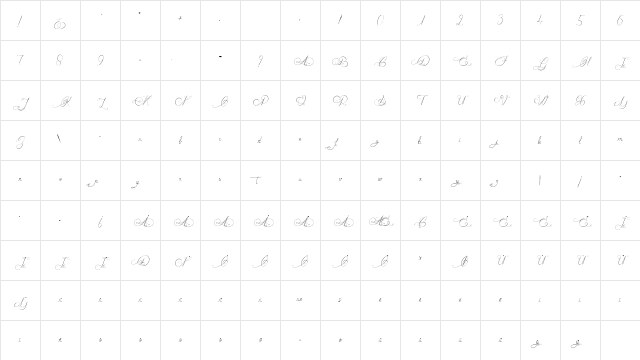
Complete Mademoiselle Catherine Italic glyph index. Displaying only characters natively supported by Mademoiselle Catherine Italic font.
Mademoiselle Catherine is a composed and adaptable typeface that performs quietly and consistently across a wide range of design contexts. The slanted form adds forward momentum and visual energy.
Pro Tip: Use Mademoiselle Catherine for emphasis, pull quotes, and subheadings where its slanted energy can add rhythm to the layout.